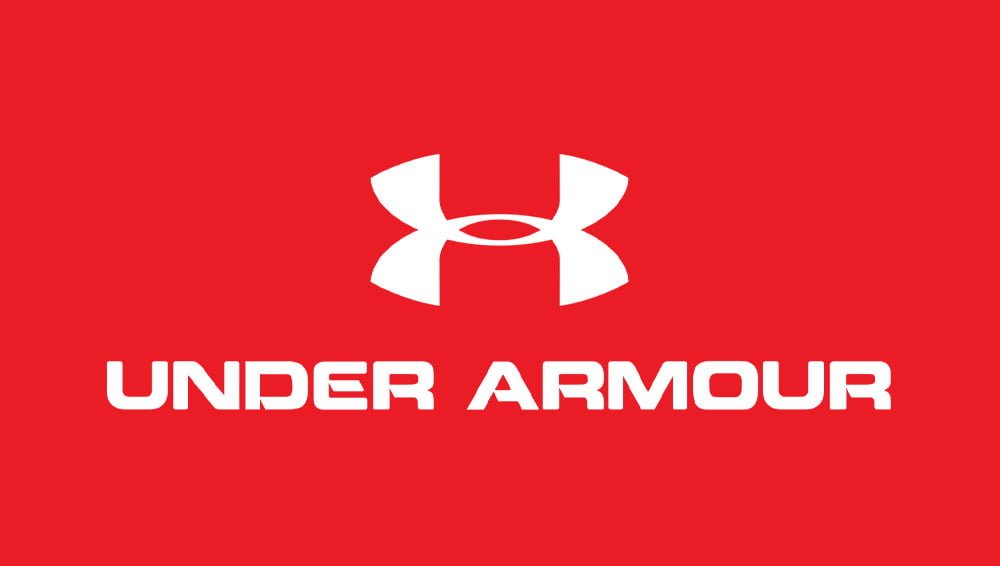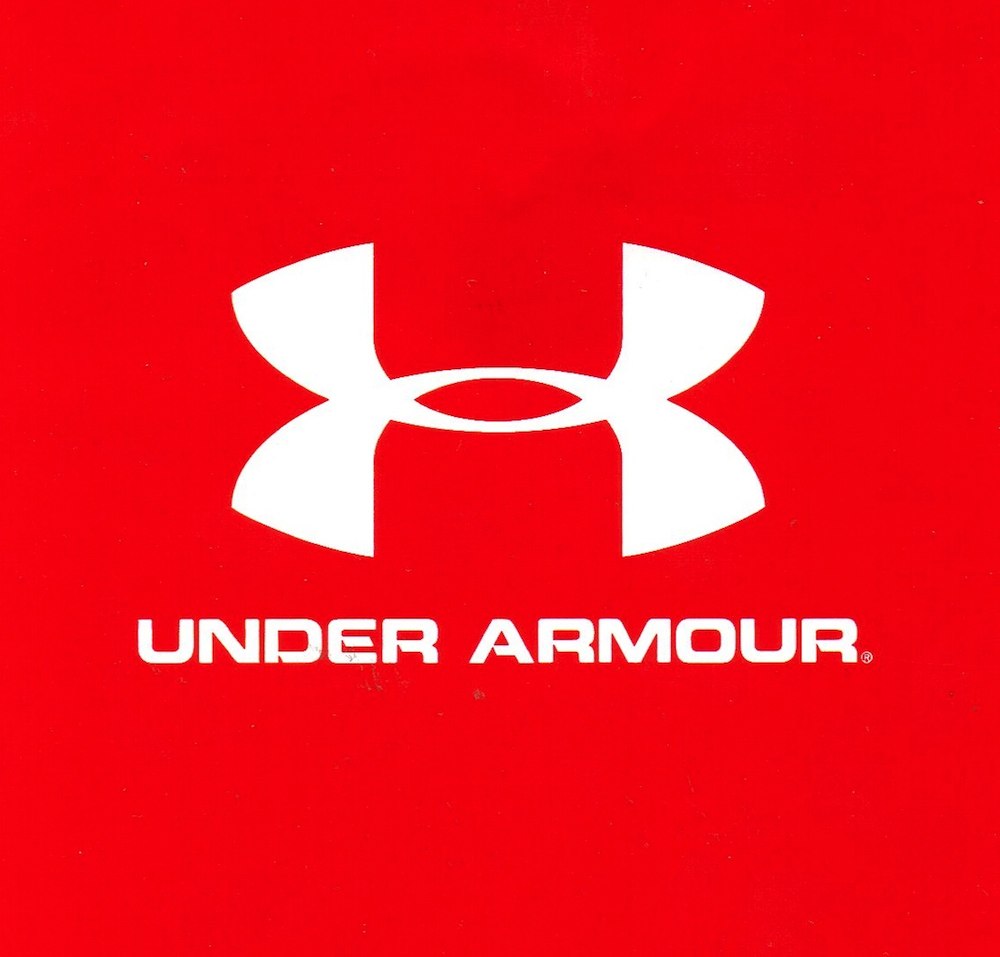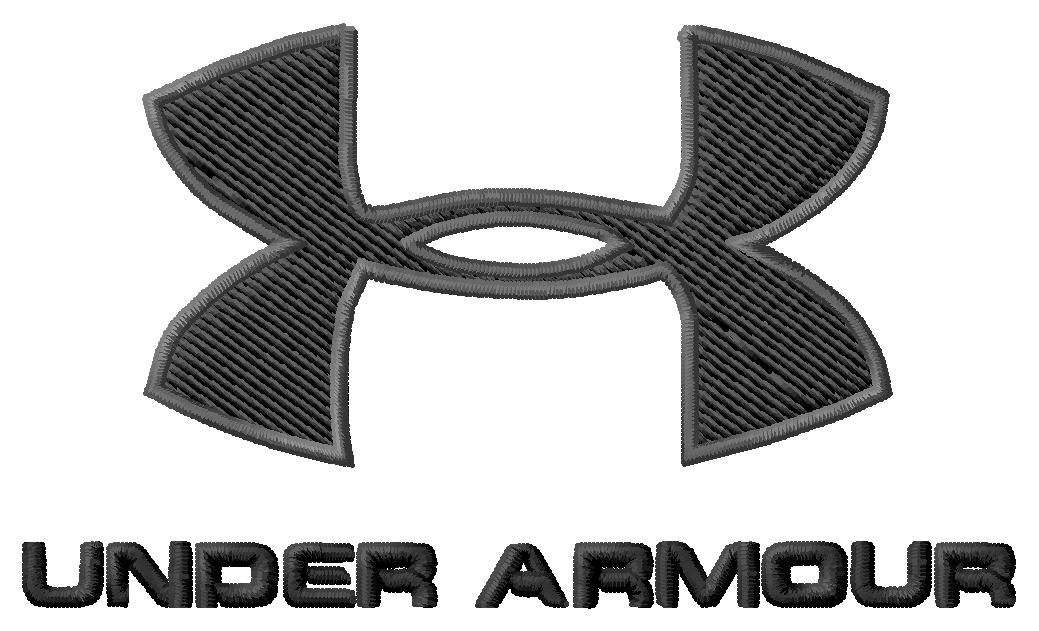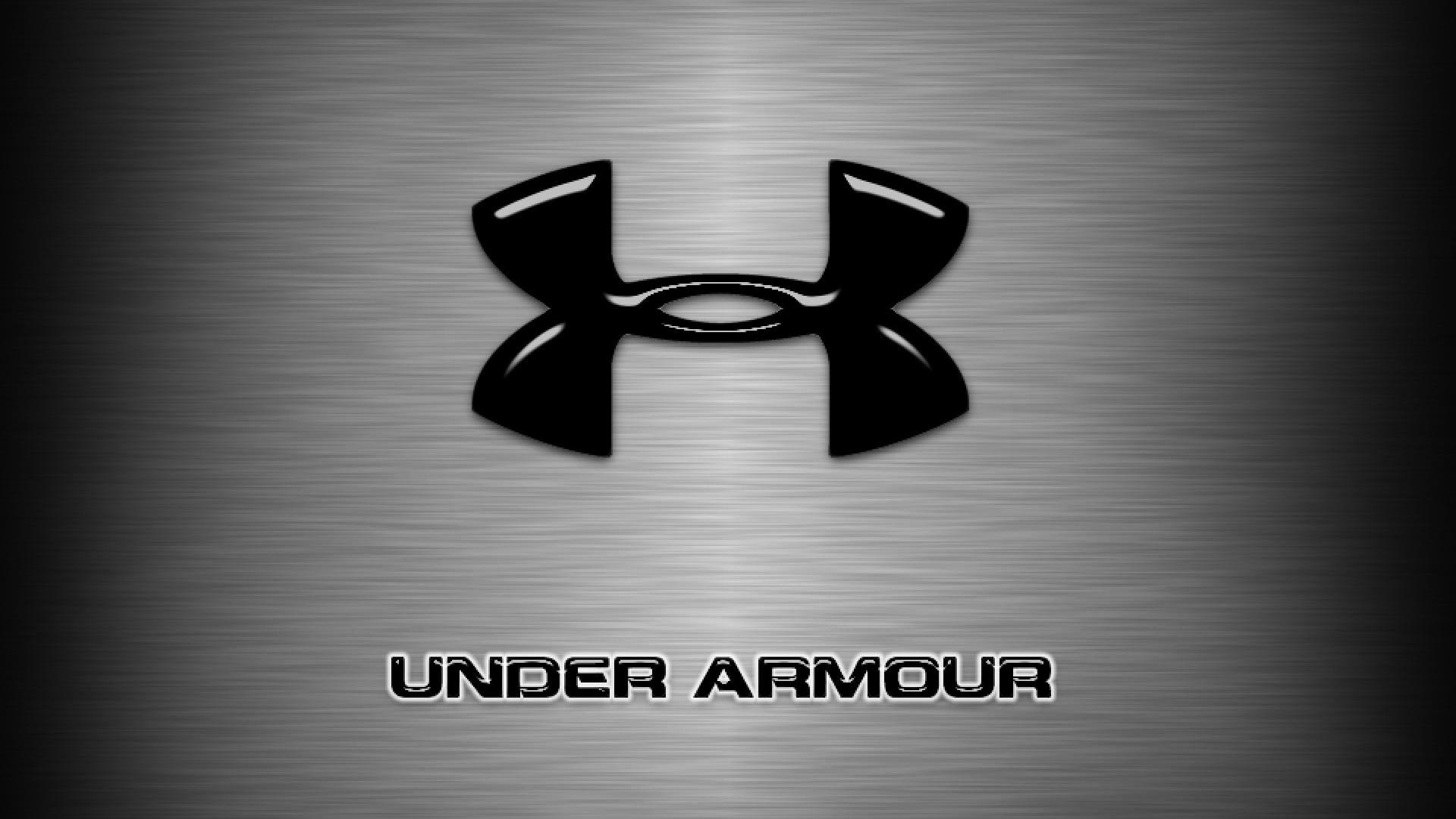
What Font Does Under Armour Use . Under armour is an american sports clothing and accessories company founded in 1996. The font used for under armour logo is very similar to eurostile black extended, which is a square sans serif font designed by aldo novarese and published by. Try the best under armour font generator & convert your text into images with many styles to choose from. The under armour logo font is a unique typeface specifically designed for the athletic and sports company. What's the font used for under armour logo? Under armour does not use a single font for its apparel. The logotype of the company was probably designed based on eurostile ext black, a geometric sans serif font. Instead, it uses a combination of different fonts depending on the design and. What font does the under armour logo use? Under armour font is an american sportswear brand established in baltimore, maryland. Download under armour font font free on fontbolt. They sell regular athletic wear as well as footwear since 2006 when.
The under armour logo font is a unique typeface specifically designed for the athletic and sports company. The font used for under armour logo is very similar to eurostile black extended, which is a square sans serif font designed by aldo novarese and published by. What's the font used for under armour logo? Under armour font is an american sportswear brand established in baltimore, maryland. What font does the under armour logo use? The logotype of the company was probably designed based on eurostile ext black, a geometric sans serif font. Try the best under armour font generator & convert your text into images with many styles to choose from. Download under armour font font free on fontbolt. Under armour is an american sports clothing and accessories company founded in 1996. Under armour does not use a single font for its apparel.
What Font Does Under Armour Use What's the font used for under armour logo? The under armour logo font is a unique typeface specifically designed for the athletic and sports company. Under armour is an american sports clothing and accessories company founded in 1996. They sell regular athletic wear as well as footwear since 2006 when. What's the font used for under armour logo? Download under armour font font free on fontbolt. Under armour font is an american sportswear brand established in baltimore, maryland. The logotype of the company was probably designed based on eurostile ext black, a geometric sans serif font. Instead, it uses a combination of different fonts depending on the design and. Try the best under armour font generator & convert your text into images with many styles to choose from. What font does the under armour logo use? The font used for under armour logo is very similar to eurostile black extended, which is a square sans serif font designed by aldo novarese and published by. Under armour does not use a single font for its apparel.
Font Under Armour 2018 , Png Download Illustration Clipart Large What Font Does Under Armour Use The logotype of the company was probably designed based on eurostile ext black, a geometric sans serif font. Download under armour font font free on fontbolt. Instead, it uses a combination of different fonts depending on the design and. Try the best under armour font generator & convert your text into images with many styles to choose from. Under armour. What Font Does Under Armour Use.
Under Armour Sign Text and Brand Logo Shop American Sports Clothing and What Font Does Under Armour Use Try the best under armour font generator & convert your text into images with many styles to choose from. Under armour font is an american sportswear brand established in baltimore, maryland. What font does the under armour logo use? They sell regular athletic wear as well as footwear since 2006 when. The under armour logo font is a unique typeface. What Font Does Under Armour Use.
Pin on Typography What Font Does Under Armour Use Under armour is an american sports clothing and accessories company founded in 1996. Download under armour font font free on fontbolt. Under armour font is an american sportswear brand established in baltimore, maryland. They sell regular athletic wear as well as footwear since 2006 when. Instead, it uses a combination of different fonts depending on the design and. Try the. What Font Does Under Armour Use.
Under Armour Font Free Download » DaFontsPro What Font Does Under Armour Use Under armour does not use a single font for its apparel. Instead, it uses a combination of different fonts depending on the design and. They sell regular athletic wear as well as footwear since 2006 when. Under armour is an american sports clothing and accessories company founded in 1996. The font used for under armour logo is very similar to. What Font Does Under Armour Use.
Good Typography in 2021 Typography, Under armour, Armour What Font Does Under Armour Use Under armour is an american sports clothing and accessories company founded in 1996. Try the best under armour font generator & convert your text into images with many styles to choose from. What's the font used for under armour logo? Under armour font is an american sportswear brand established in baltimore, maryland. Under armour does not use a single font. What Font Does Under Armour Use.
Nike Uniforms Under Armour Uniform Fonts What Font Does Under Armour Use Under armour is an american sports clothing and accessories company founded in 1996. Under armour font is an american sportswear brand established in baltimore, maryland. The logotype of the company was probably designed based on eurostile ext black, a geometric sans serif font. Download under armour font font free on fontbolt. What font does the under armour logo use? The. What Font Does Under Armour Use.
Under Armour Fonts Pack 2 Font packs, Fonts, Keep calm artwork What Font Does Under Armour Use Instead, it uses a combination of different fonts depending on the design and. Try the best under armour font generator & convert your text into images with many styles to choose from. Download under armour font font free on fontbolt. What font does the under armour logo use? What's the font used for under armour logo? The under armour logo. What Font Does Under Armour Use.
under armour logo wallpaper,red,logo,text,font,brand (462813 What Font Does Under Armour Use Try the best under armour font generator & convert your text into images with many styles to choose from. Instead, it uses a combination of different fonts depending on the design and. The font used for under armour logo is very similar to eurostile black extended, which is a square sans serif font designed by aldo novarese and published by.. What Font Does Under Armour Use.